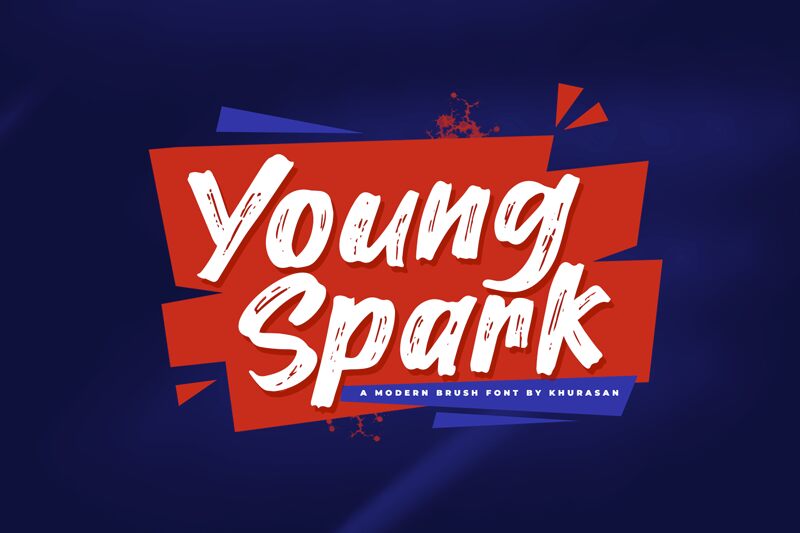
Young Spark font family by Khurasan™ captures the dynamic and youthful energy of modern brush art with its textured and expressive design. An ideal choice when you don't want a dull result, its letters speak a casual, modern, and impactful language. Get the most out of this free font family by following the examples we provide and use it wisely in creating a professional design.
Today, typical creative users are creating video intros, covers, social media promotions, branding, album or book covers, poster headings, shirt designs, and various digital work with Young Spark.